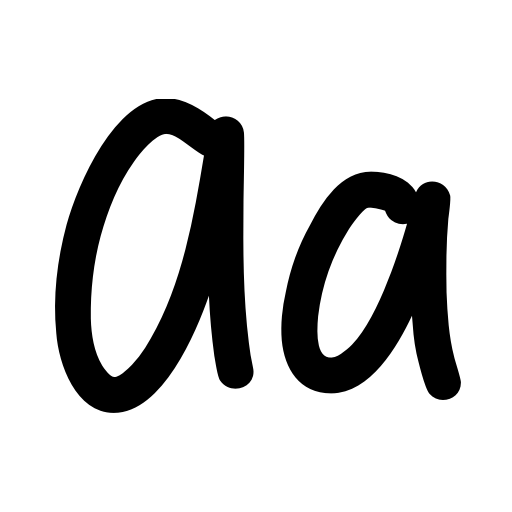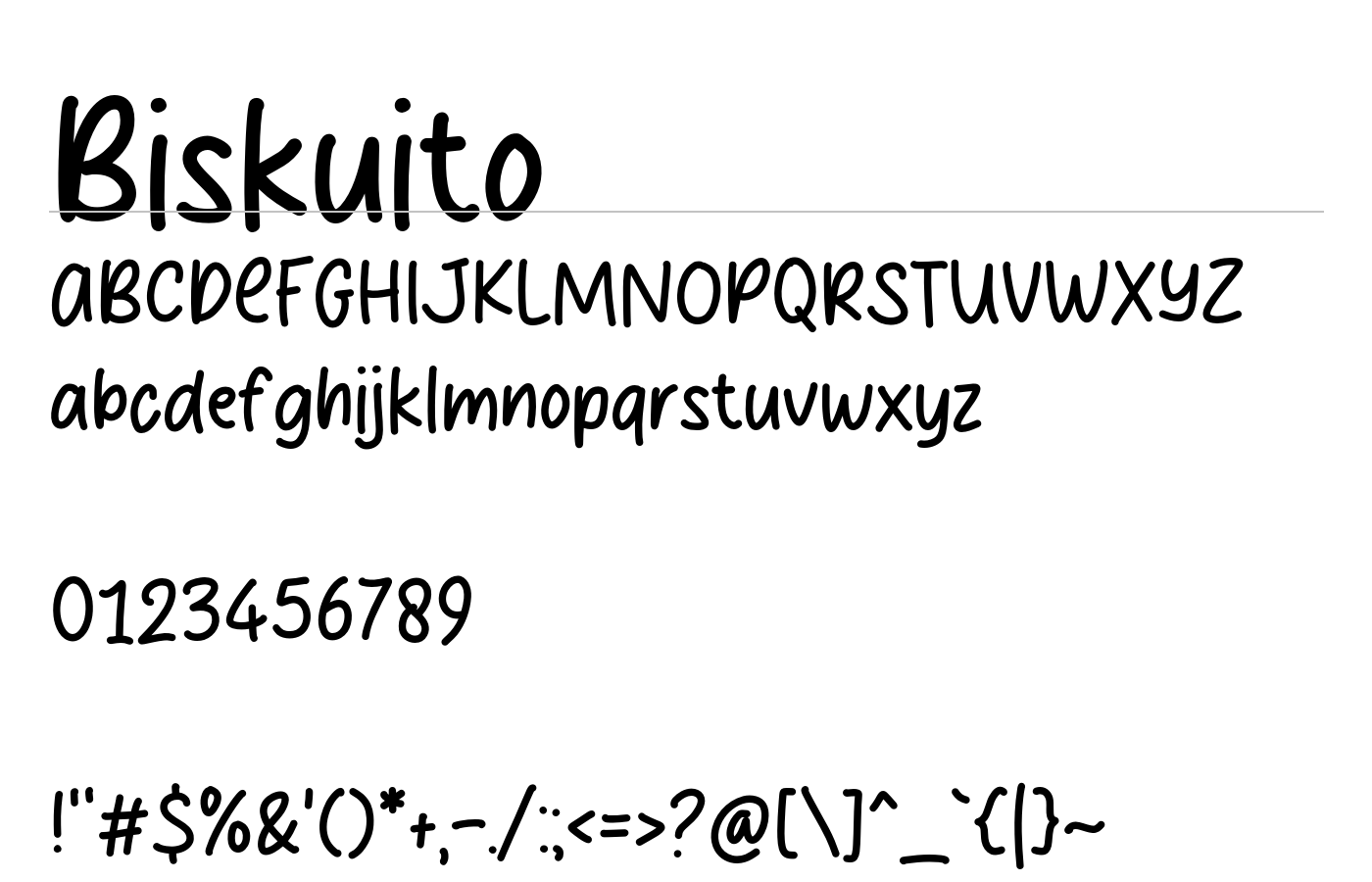
Biskuito is a playful, handwritten sans serif font with a casual and friendly vibe. Its slightly irregular, rounded strokes and moderate x-height create an approachable, informal feel, making it ideal for creative projects, children’s materials, and lighthearted branding. This font works well in logos, invitations, and websites where a personal, warm touch is desired.
Biskuito Font
About Biskuito Font